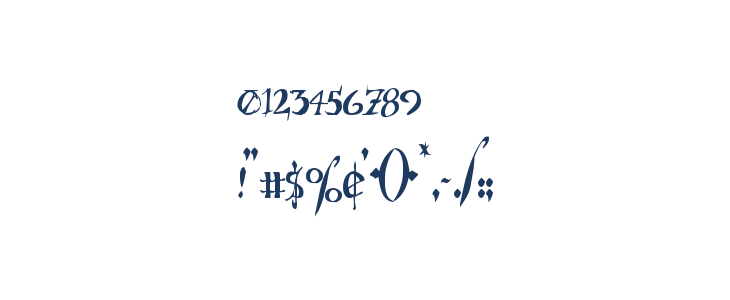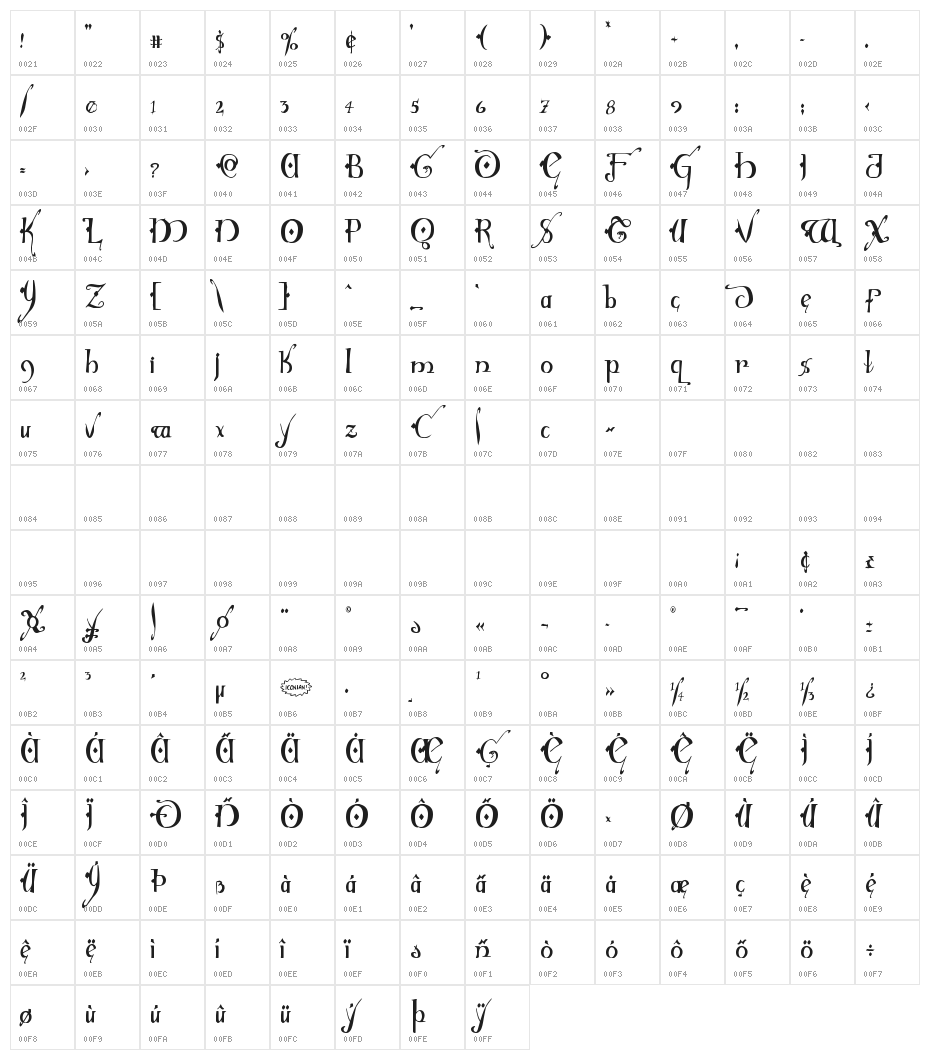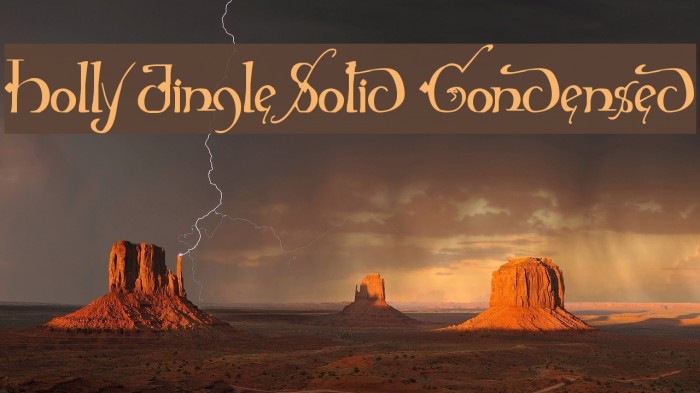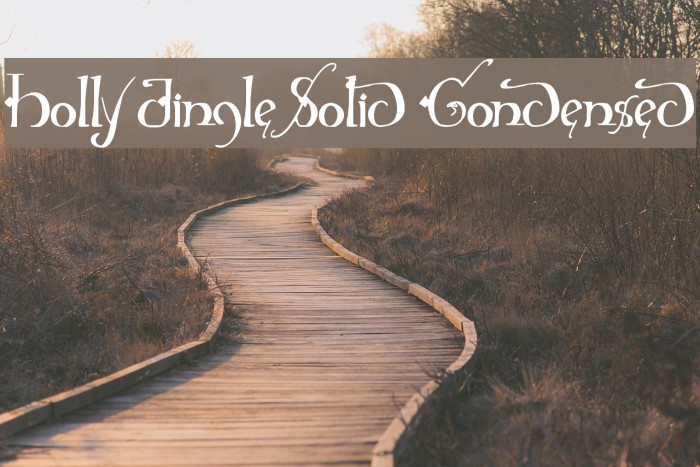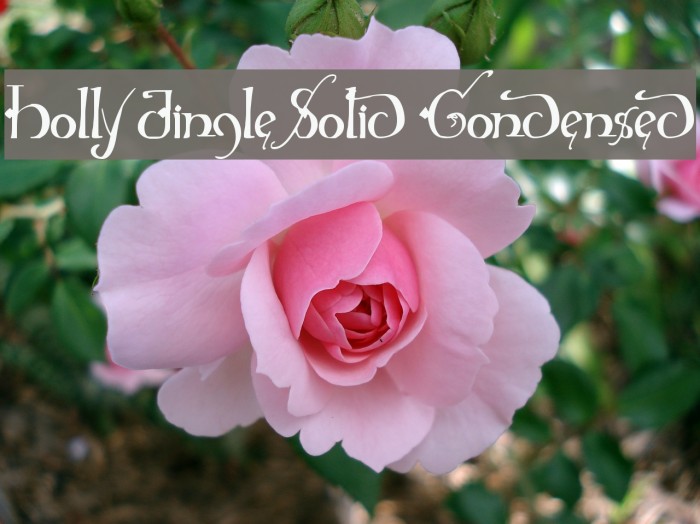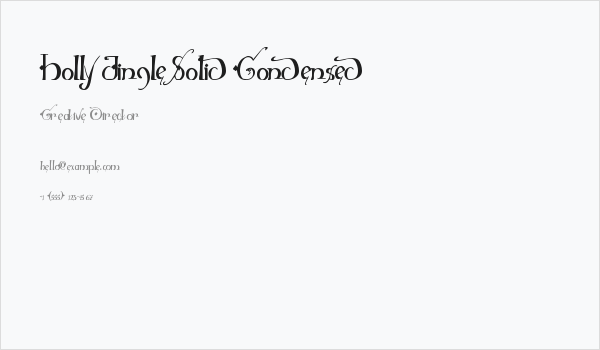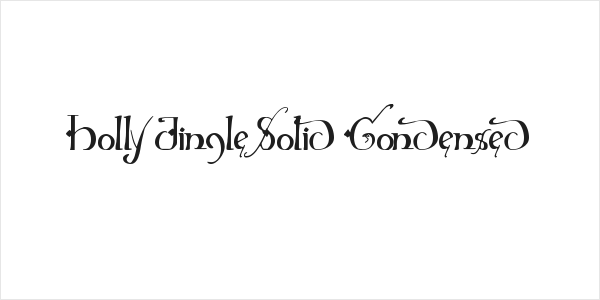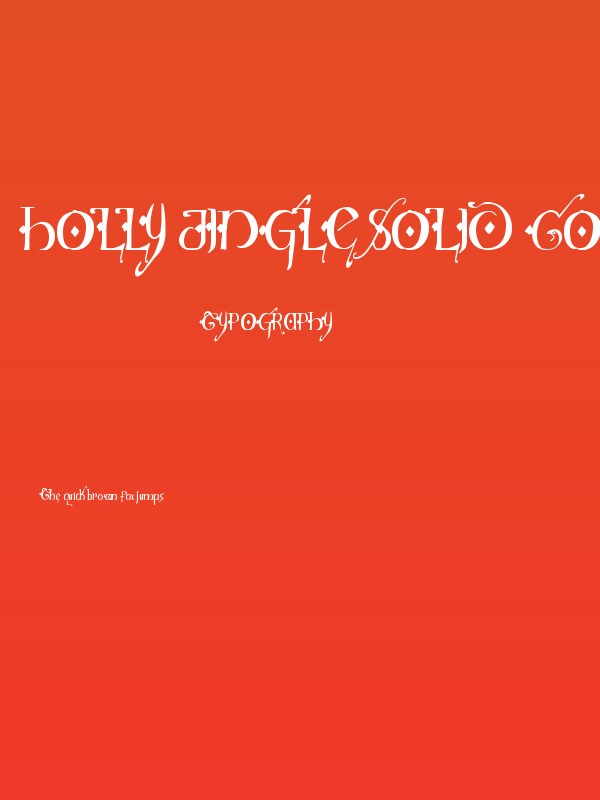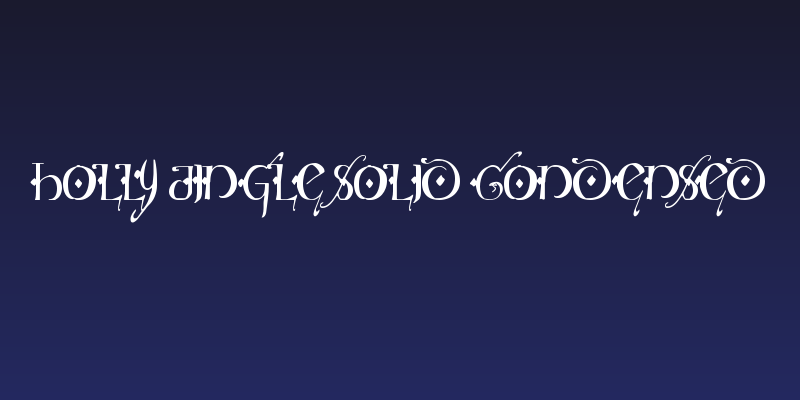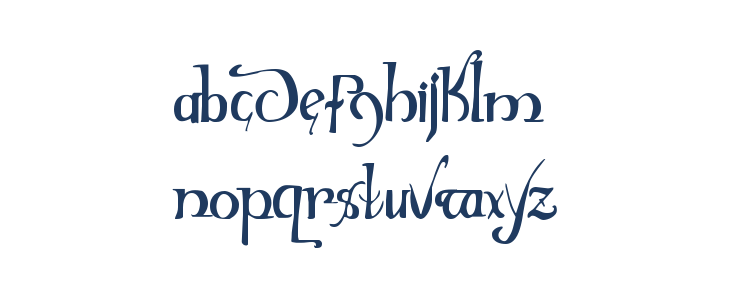
Holly Jingle Solid Condensed Font
Holly Jingle Solid Condensed Description
This font features an ornate and decorative style, characterized by its intricate swirls and flourishes that extend from the main strokes of each character. The uppercase letters are particularly elaborate, with additional loops and embellishments that give them a festive and whimsical appearance. The lowercase letters maintain a similar decorative theme, though they are slightly more subdued. The numerals and special characters also follow this ornate design, ensuring a cohesive look across all glyphs. The overall impression is one of elegance and playfulness, making it suitable for creative and festive applications.